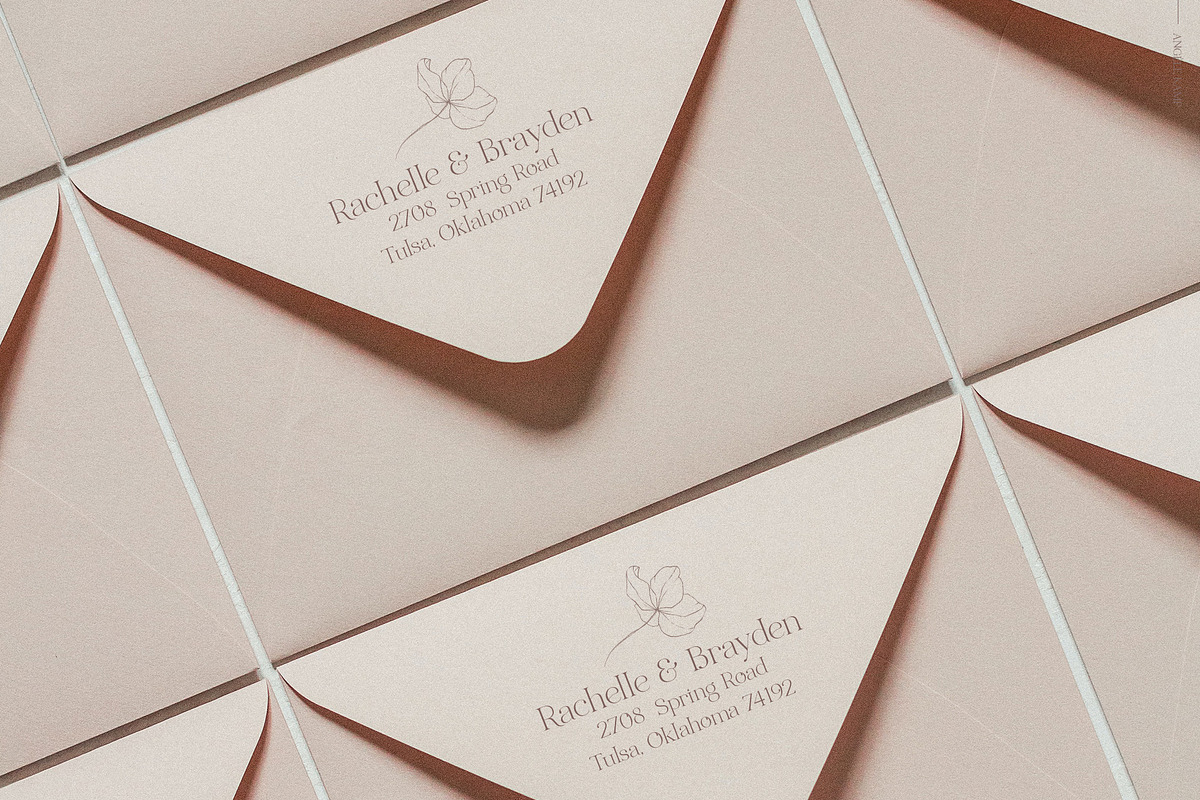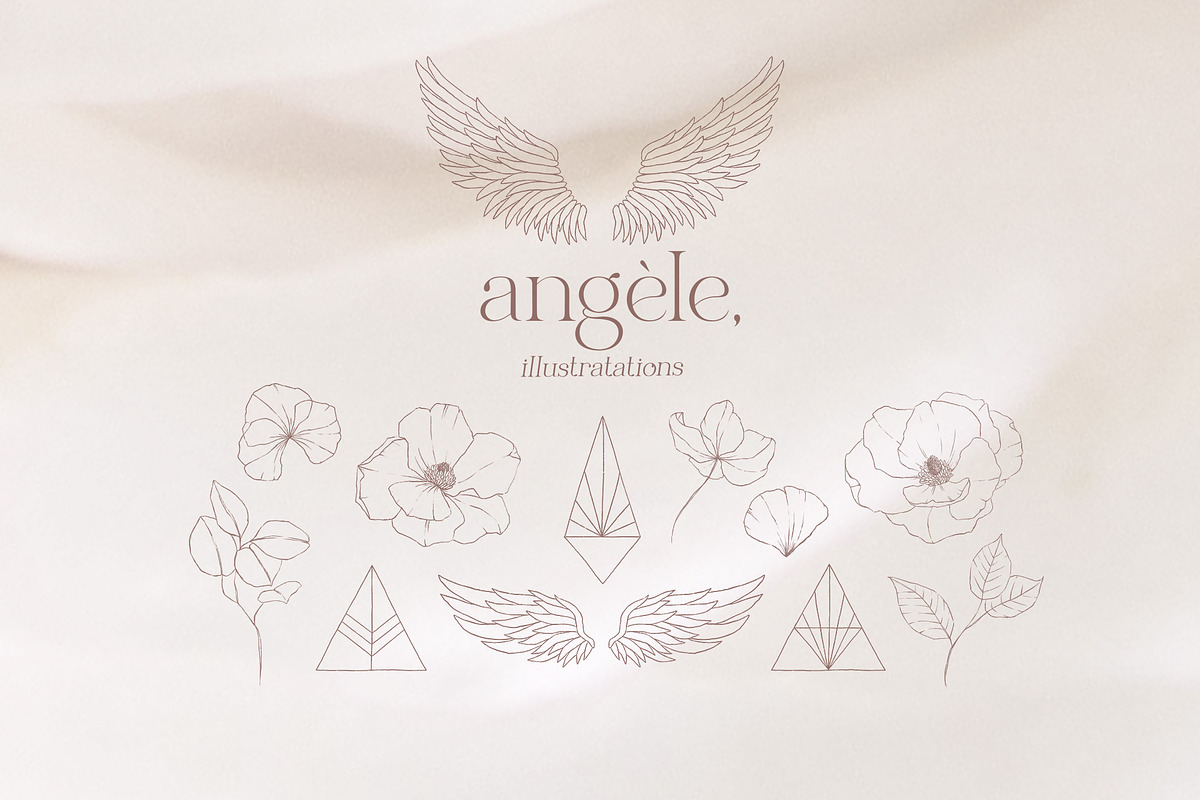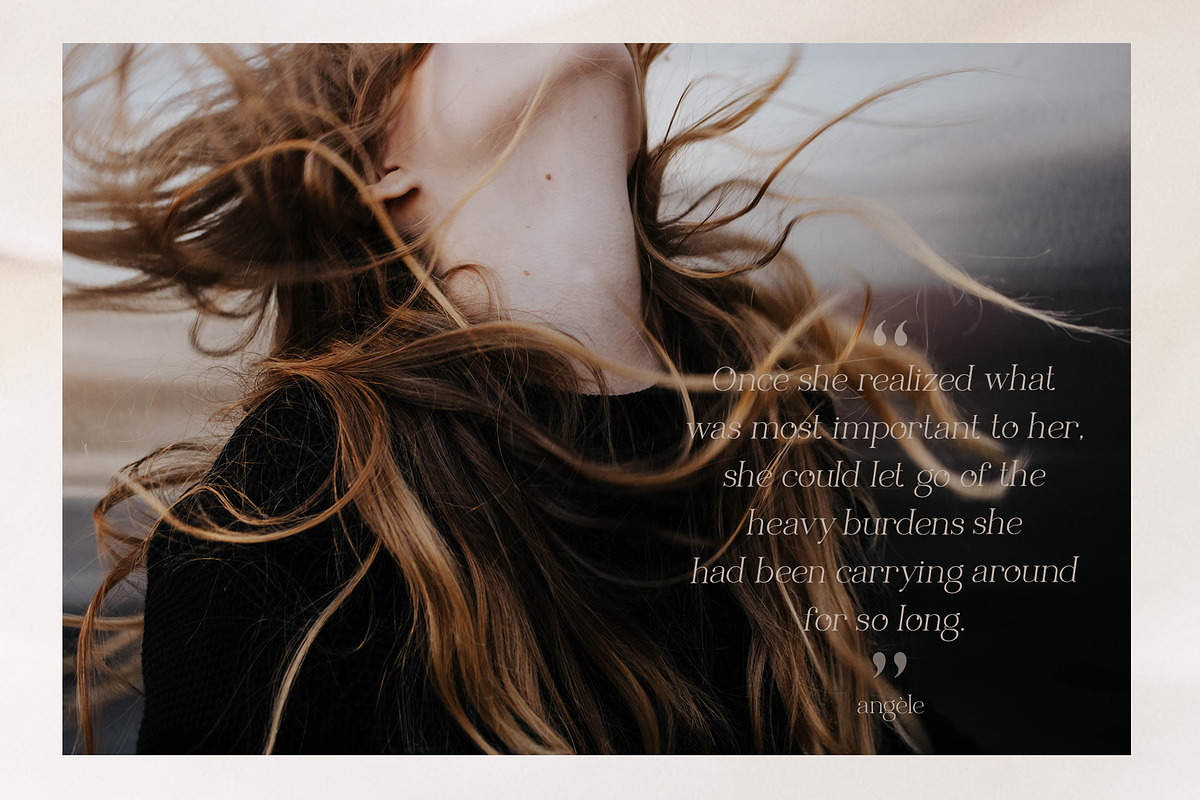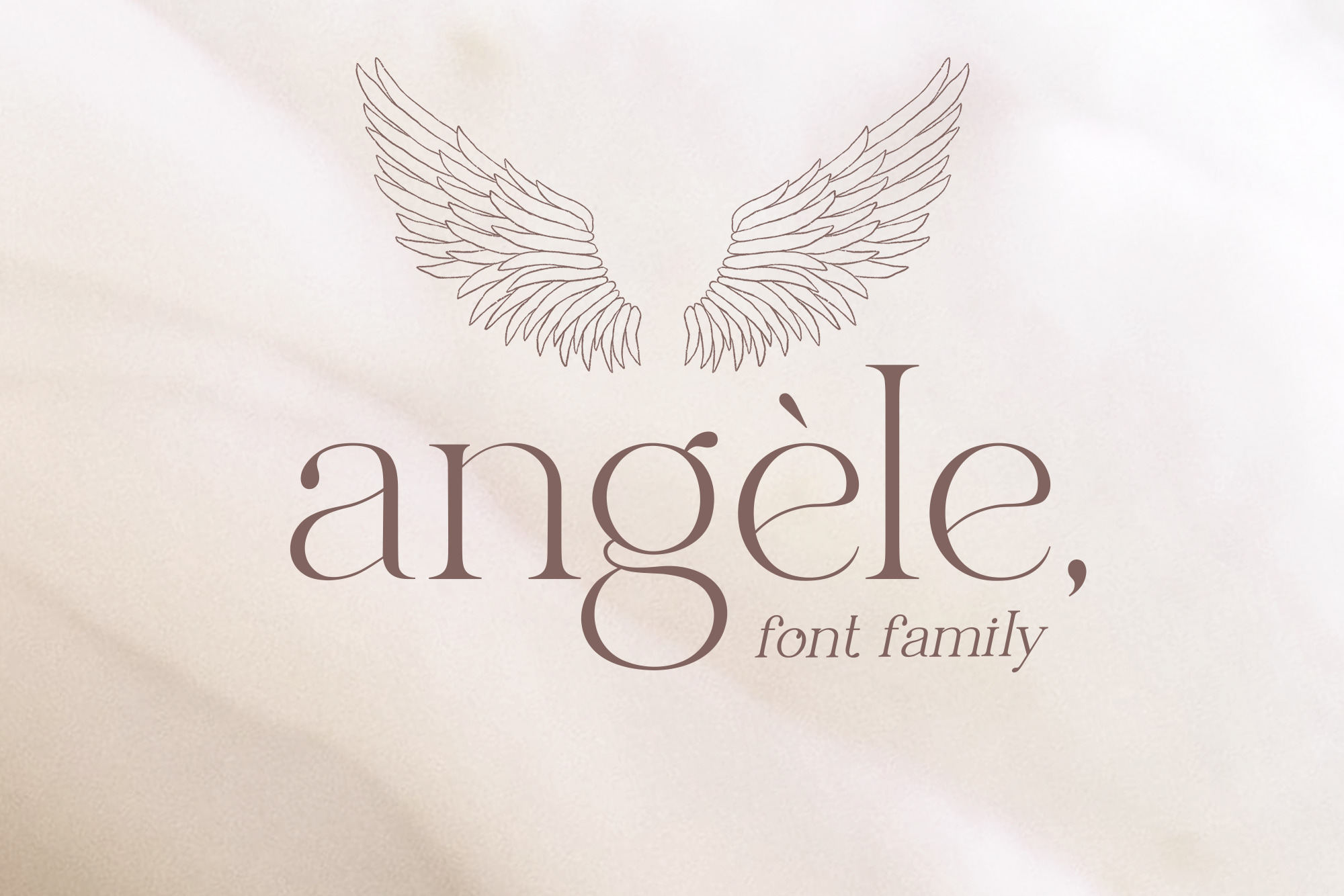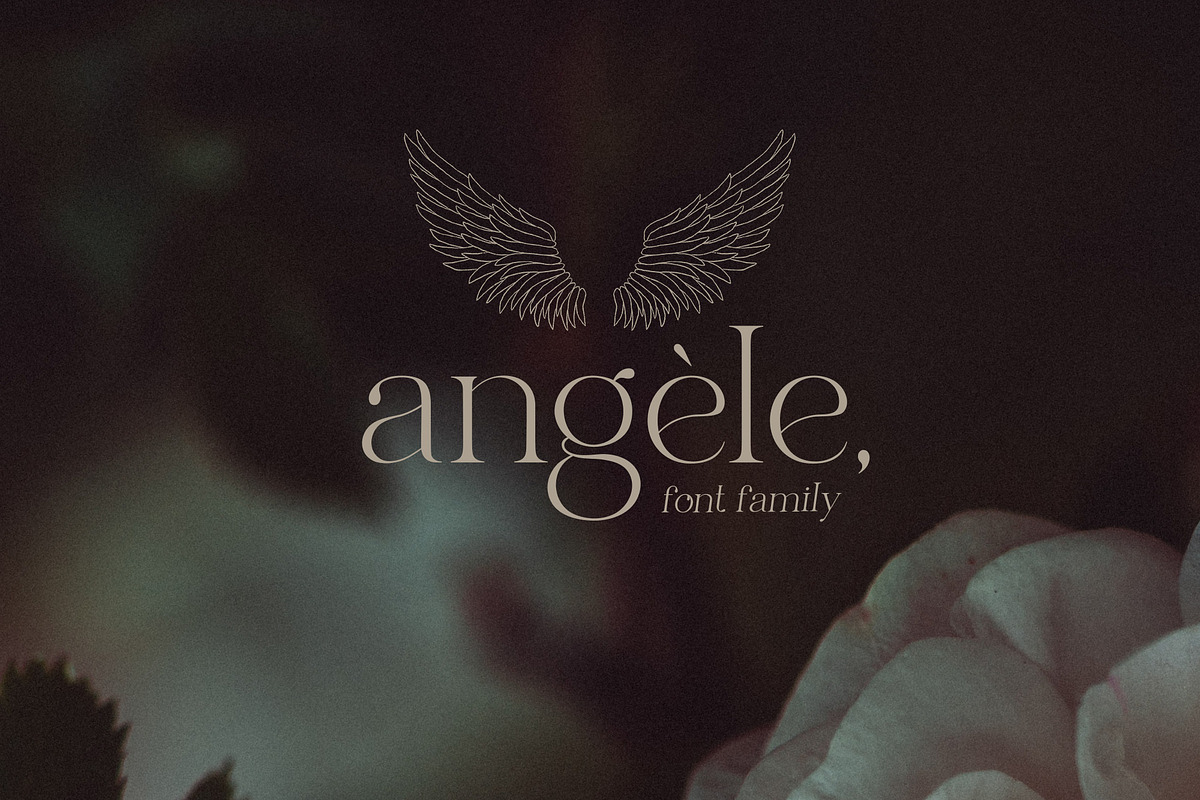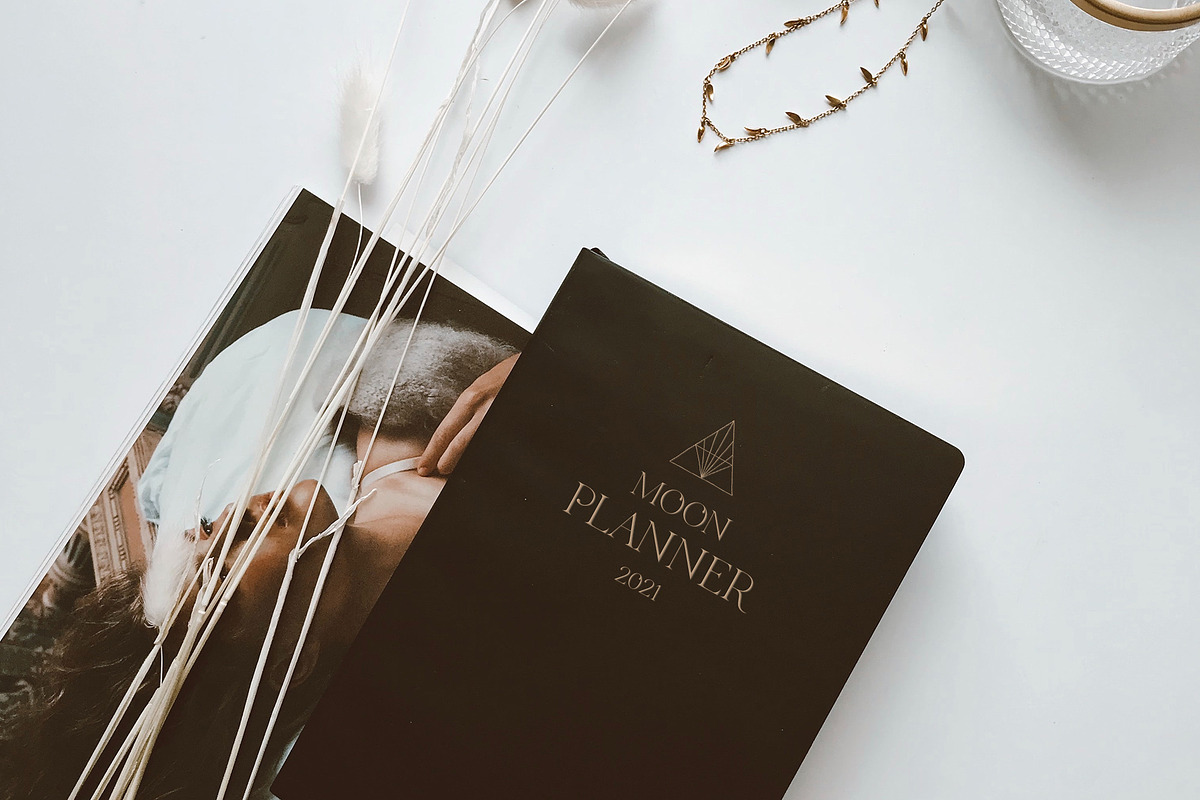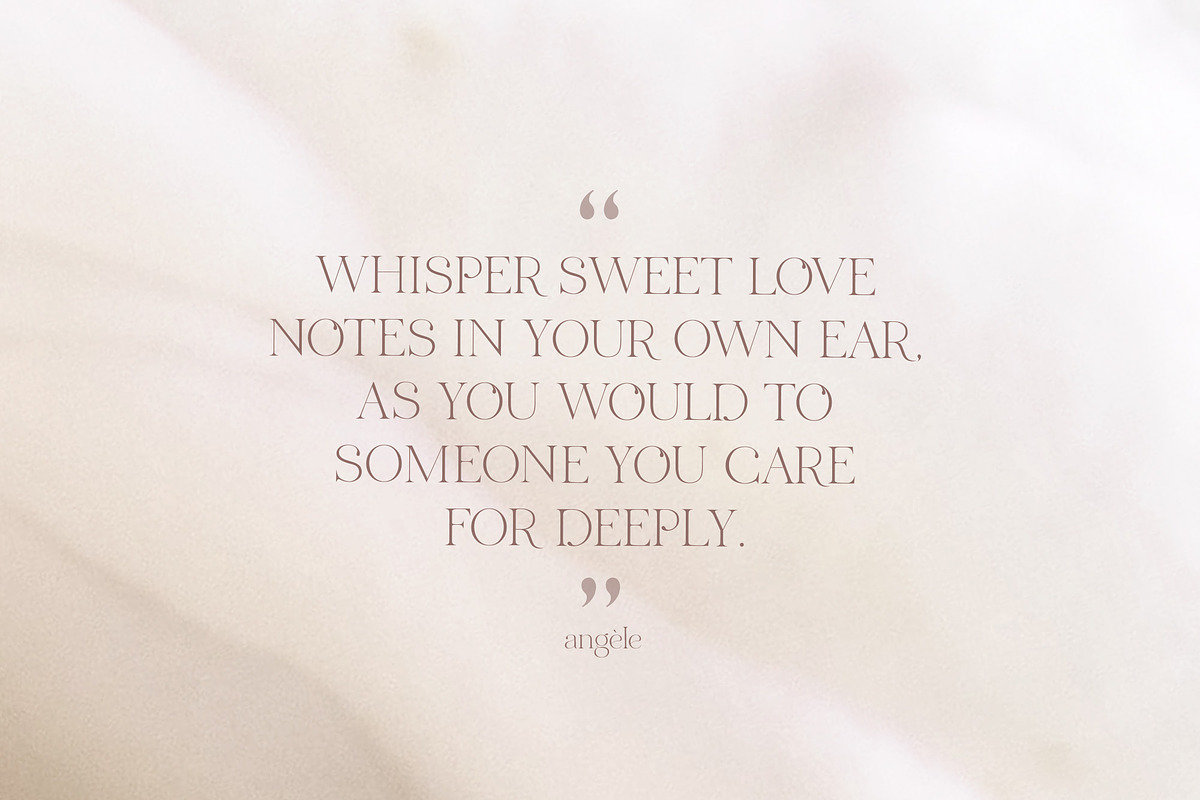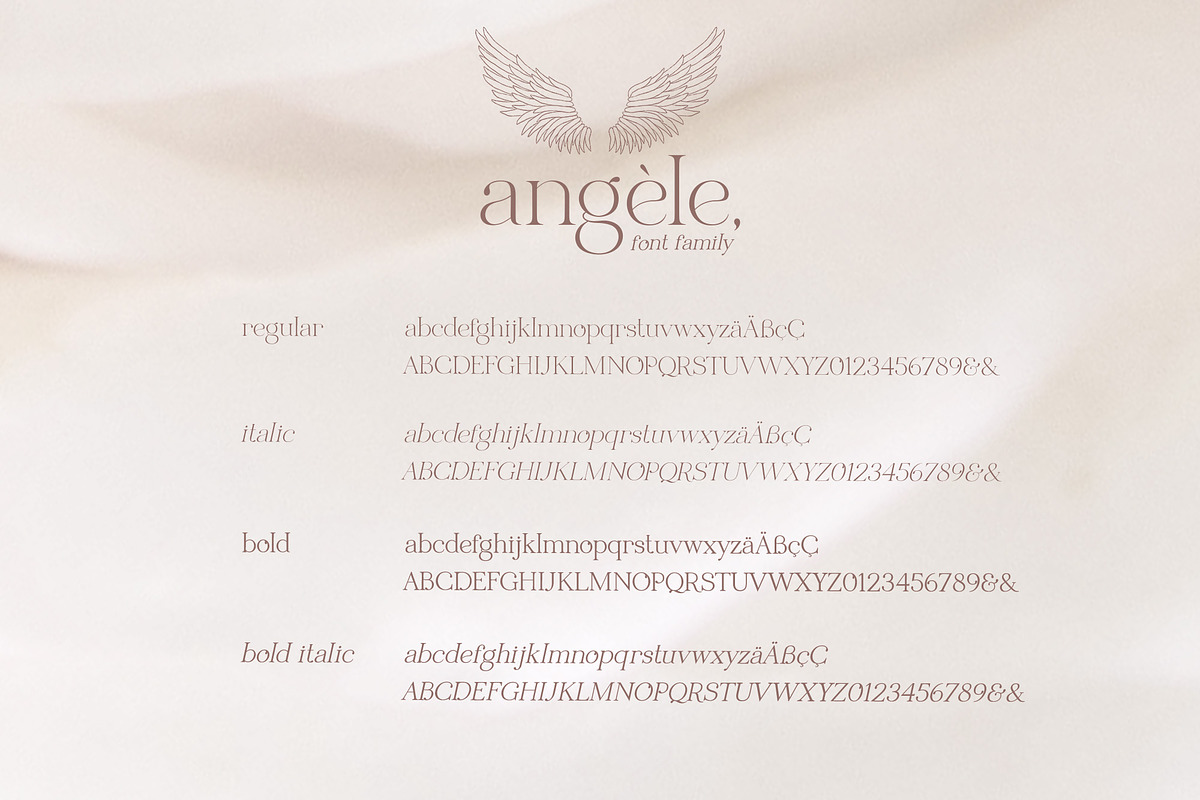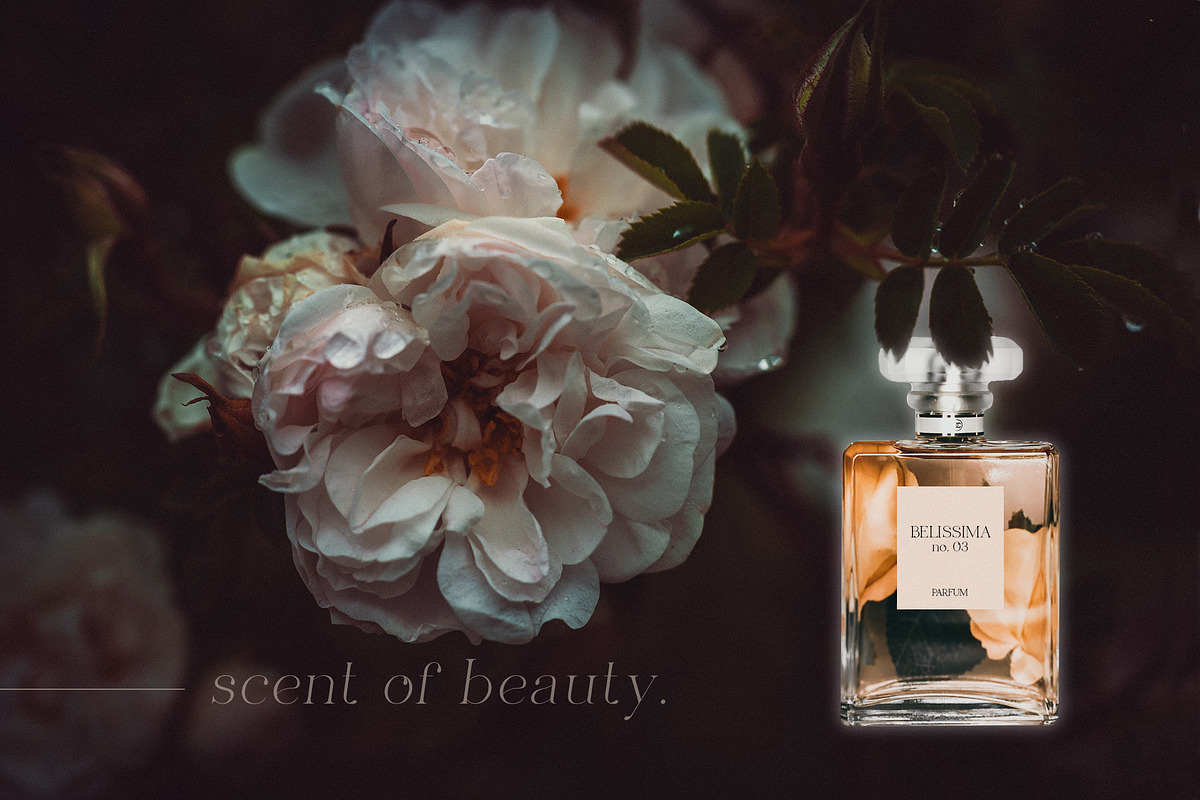
Elegant serif font family Angele
Angèle is an elegant serif font family with stylish curves. This beautiful serif is timeless and can not be missed in your font collection. As a bonus, you will receive 12 beautifully hand-drawn illustrations that complement the font perfectly. This collection will give your design projects that instant touch of class.